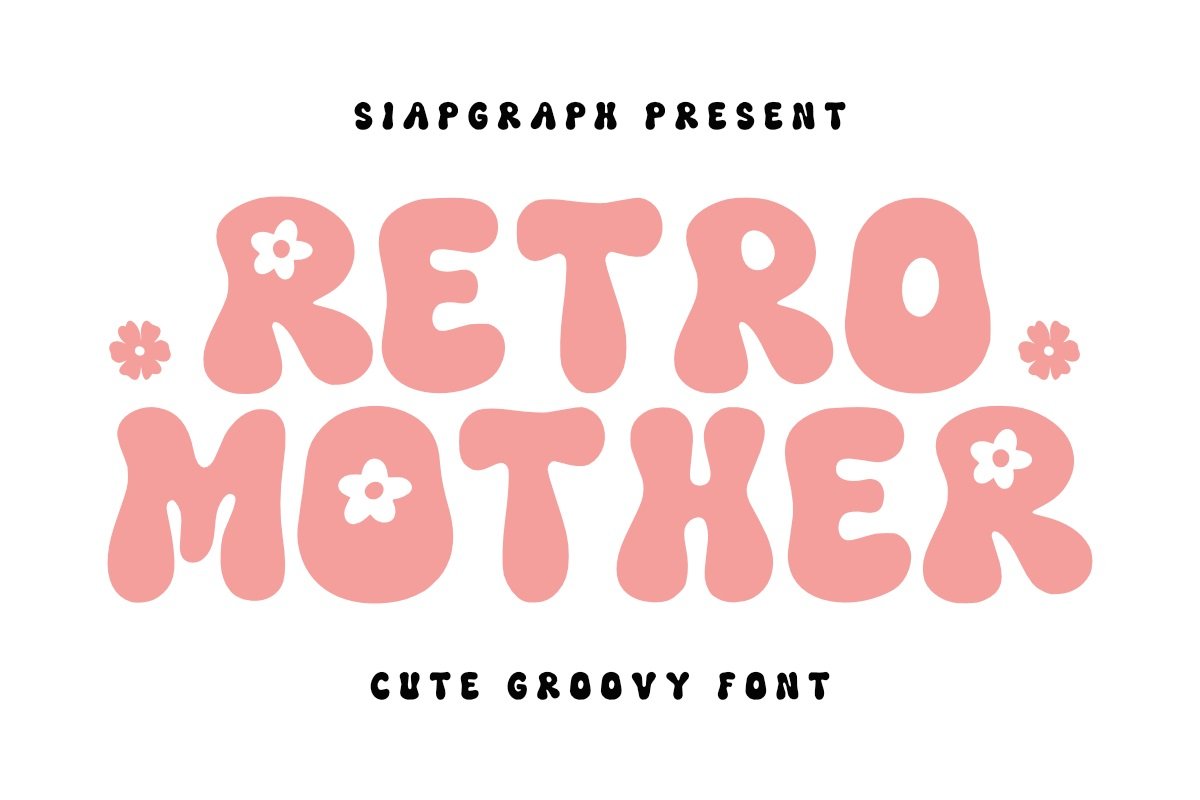
Retro Mother – Display Font is a playful and bubbly groovy font with a charming and soft aesthetic. This font features bold, rounded letterforms with a fun, puffy style that exudes warmth and joy. Perfect for Easter-themed designs, children’s books, branding, posters, greeting cards, and DIY craft projects, Cute Easter brings a cheerful and friendly vibe to any design.